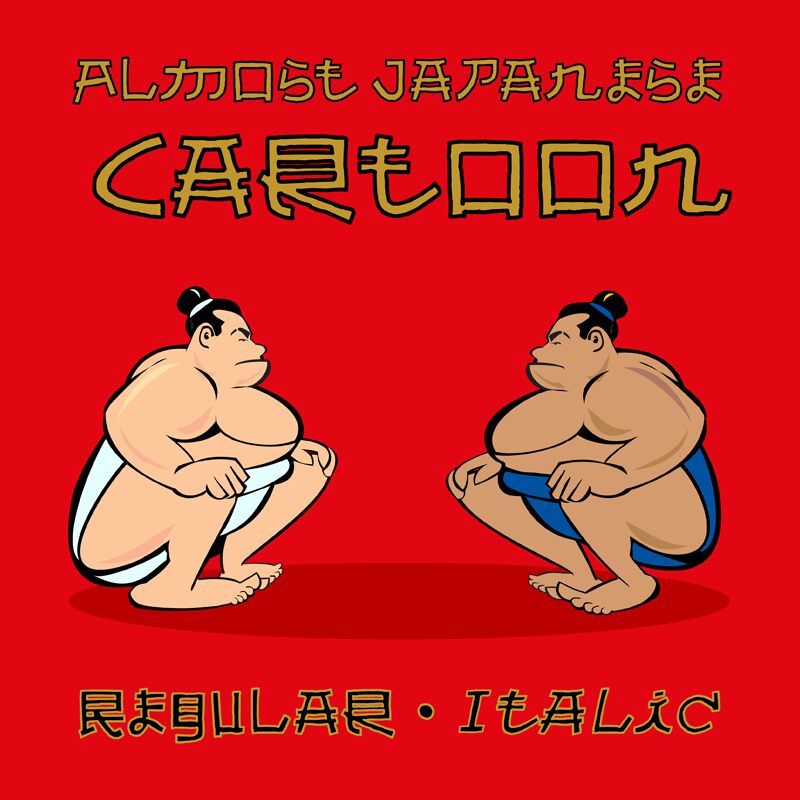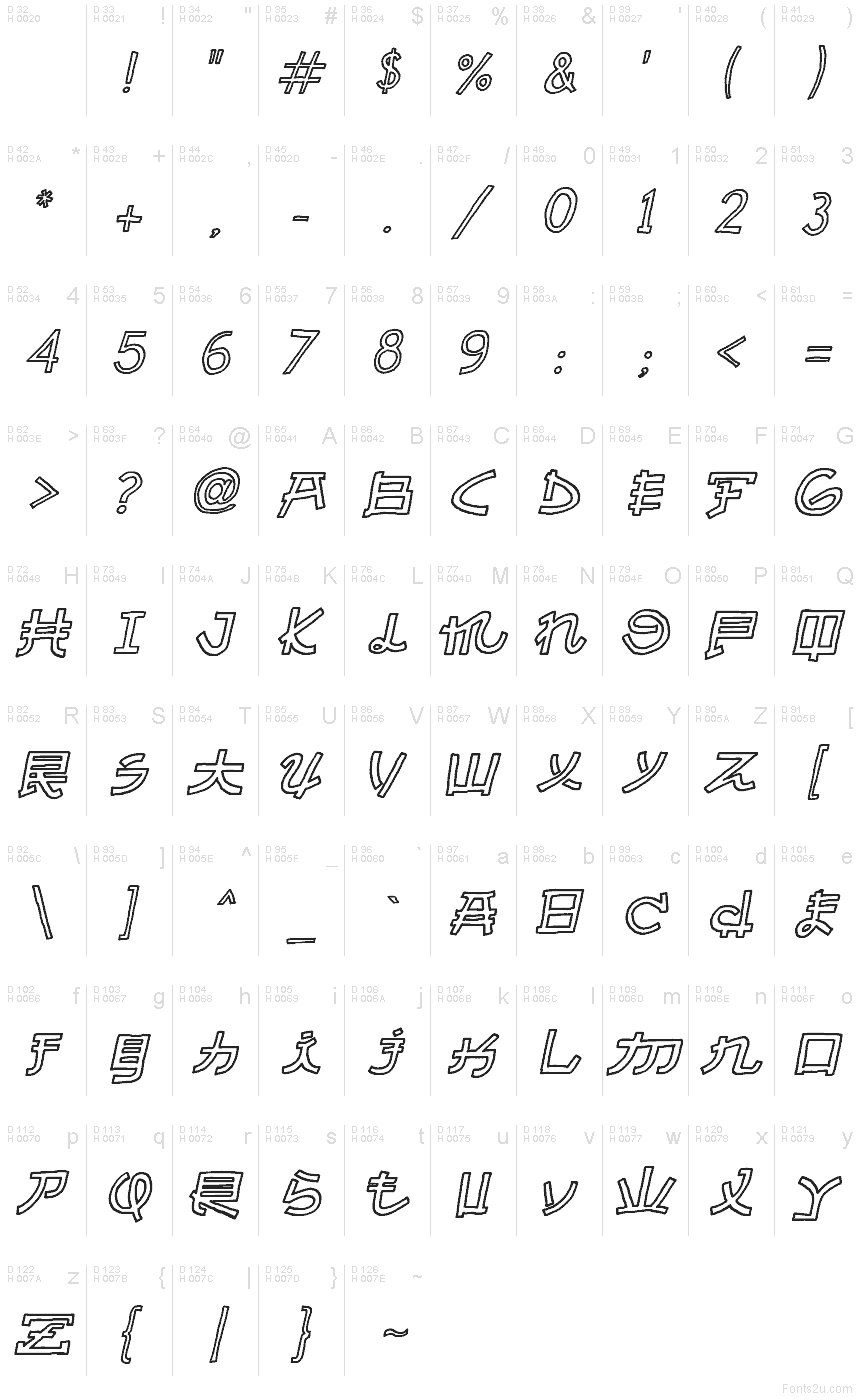
Almost Japanese Cartoon Italic
Almost Japanese Cartoon Italic font by Galdino Otten Fonts is a free faux‑foreign outlined display font with a Japanese cartoon vibe. Part of the Almost Japanese Cartoon family, it leans into a lively italic slant, with zig‑zag edges and loopy bends that feel hand‑drawn and animated. The thin, even outline keeps things airy while the rhythm stays bouncy, giving headlines a playful, kinetic snap.
Using Almost Japanese Cartoon Italic shines on anime watch‑party posters, noodle pop‑ups, cosplay event signage, retro game menus, stickers, YouTube thumbnails, and playful packaging. This free font’s sketched outline loves bold color fills or drop shadows for extra pop. Pair it with a clean rounded sans—set small captions in the sans, reserve the cartoon letters big and breezy for maximum character.